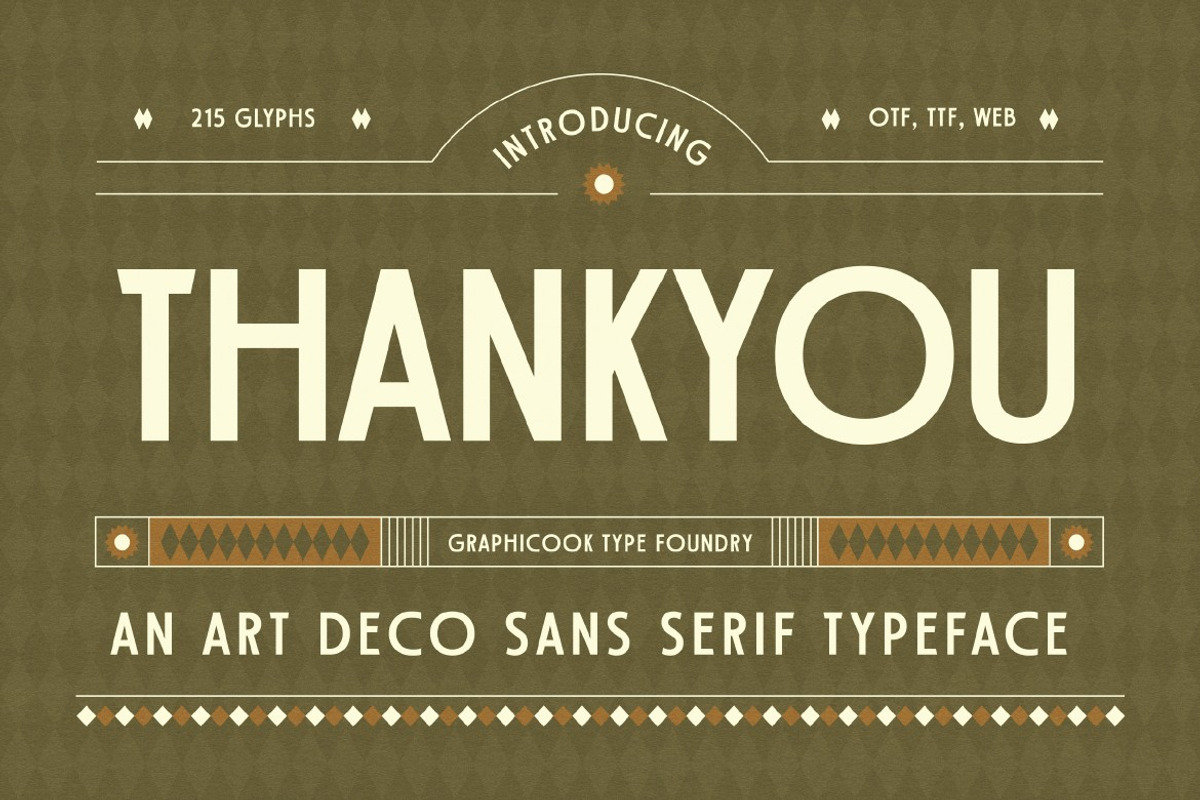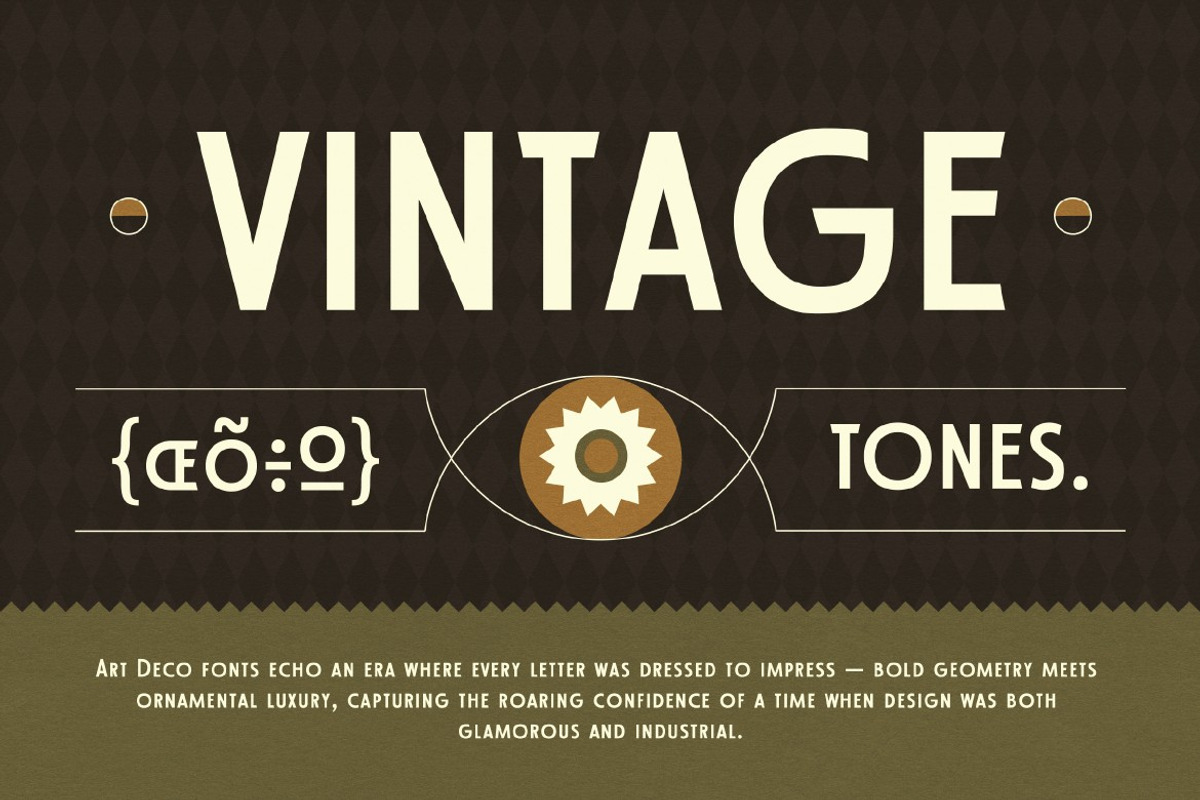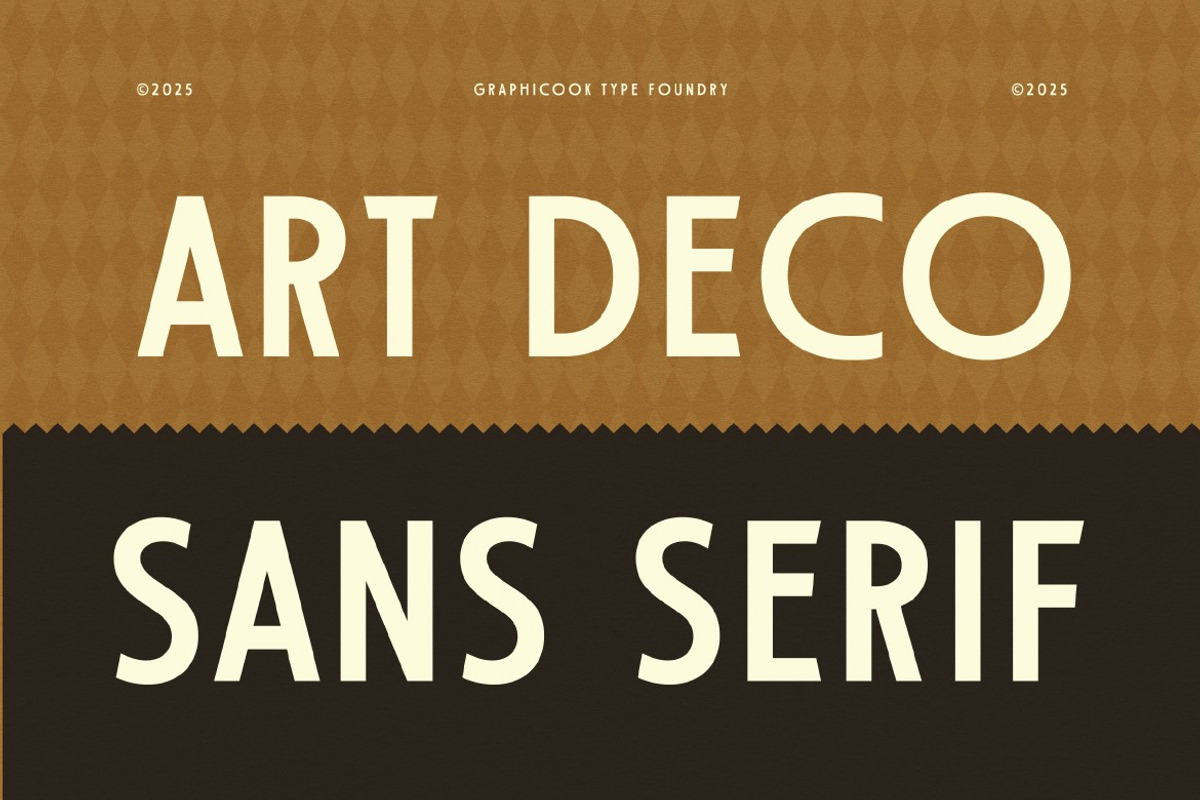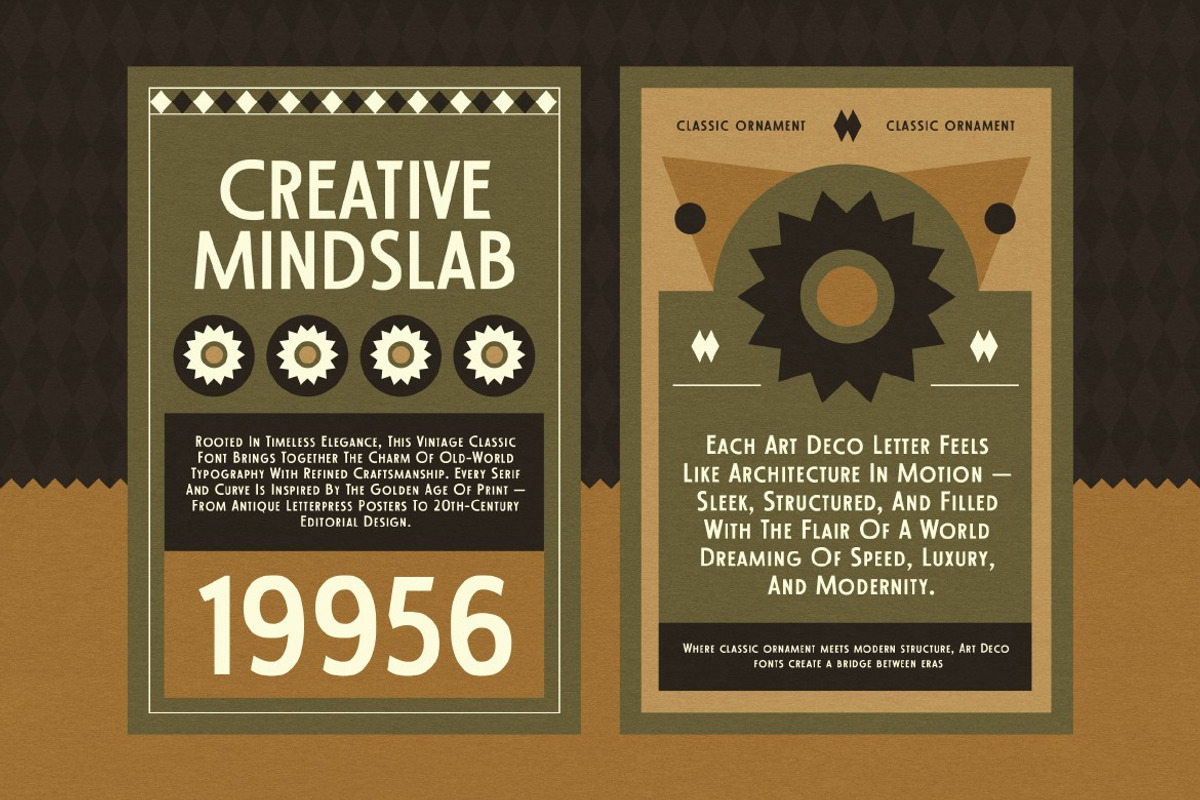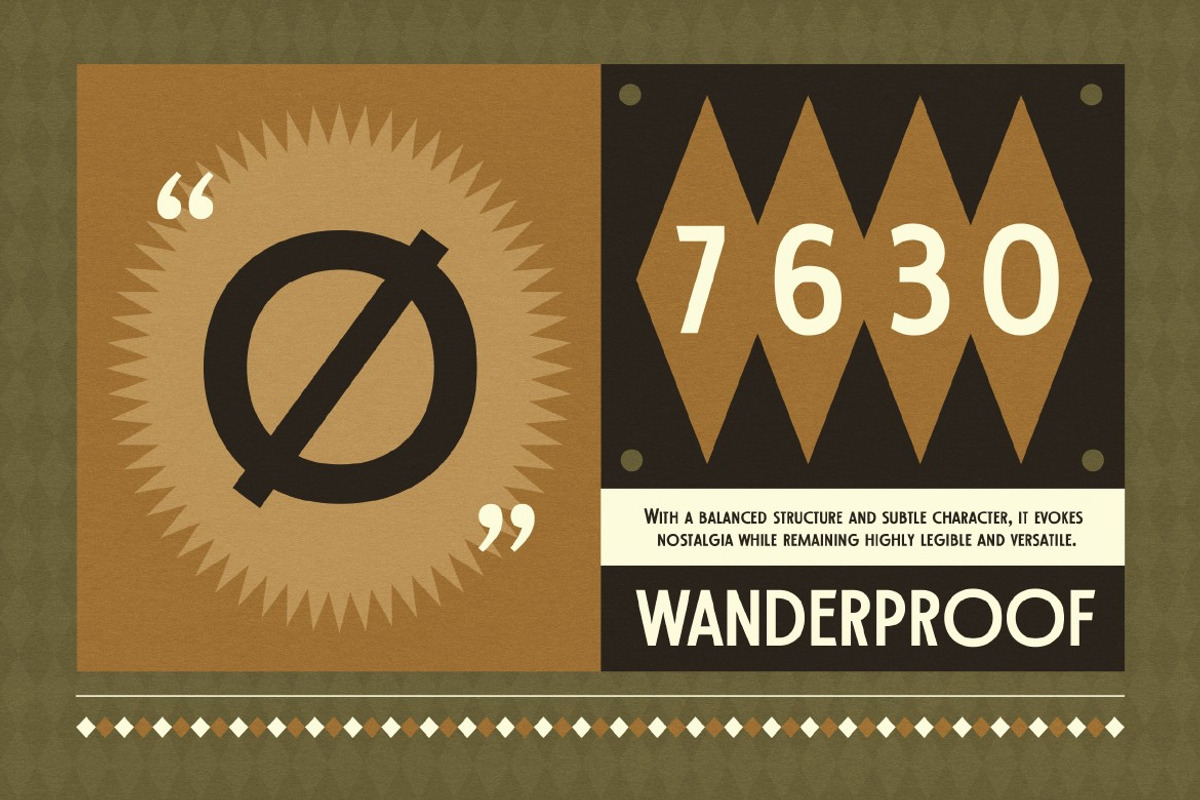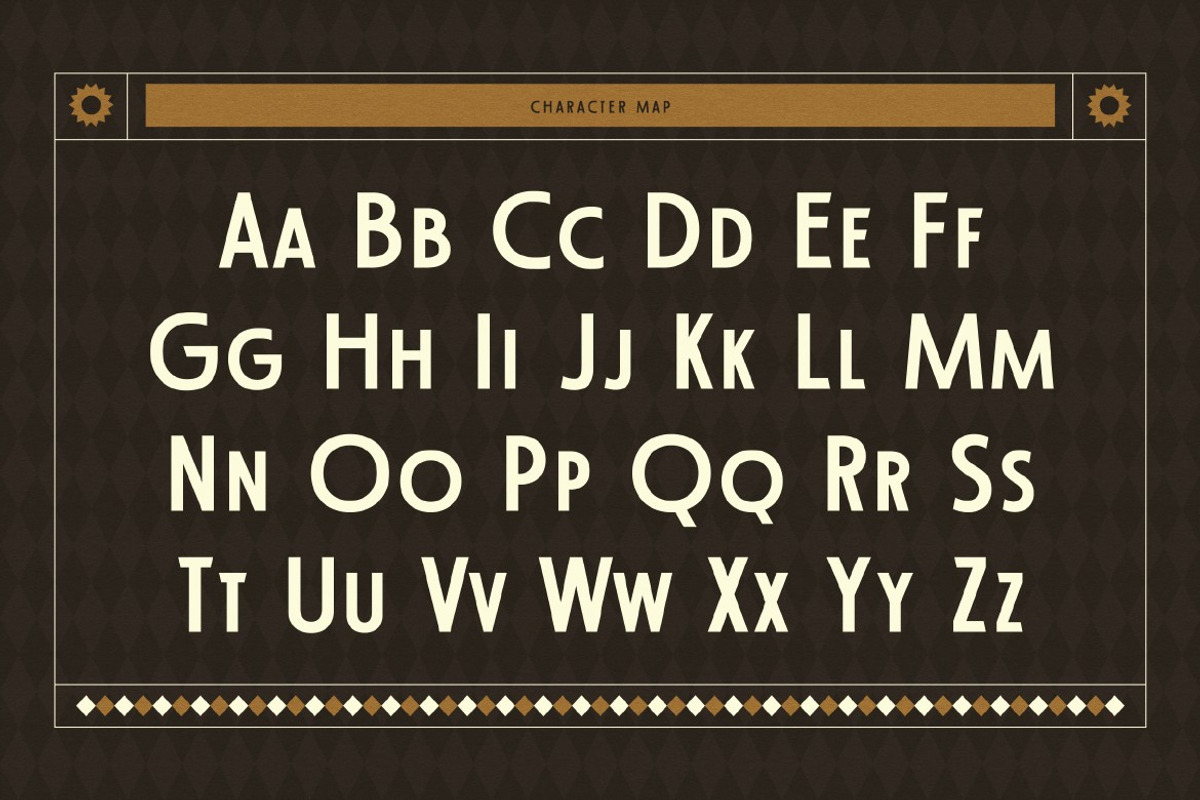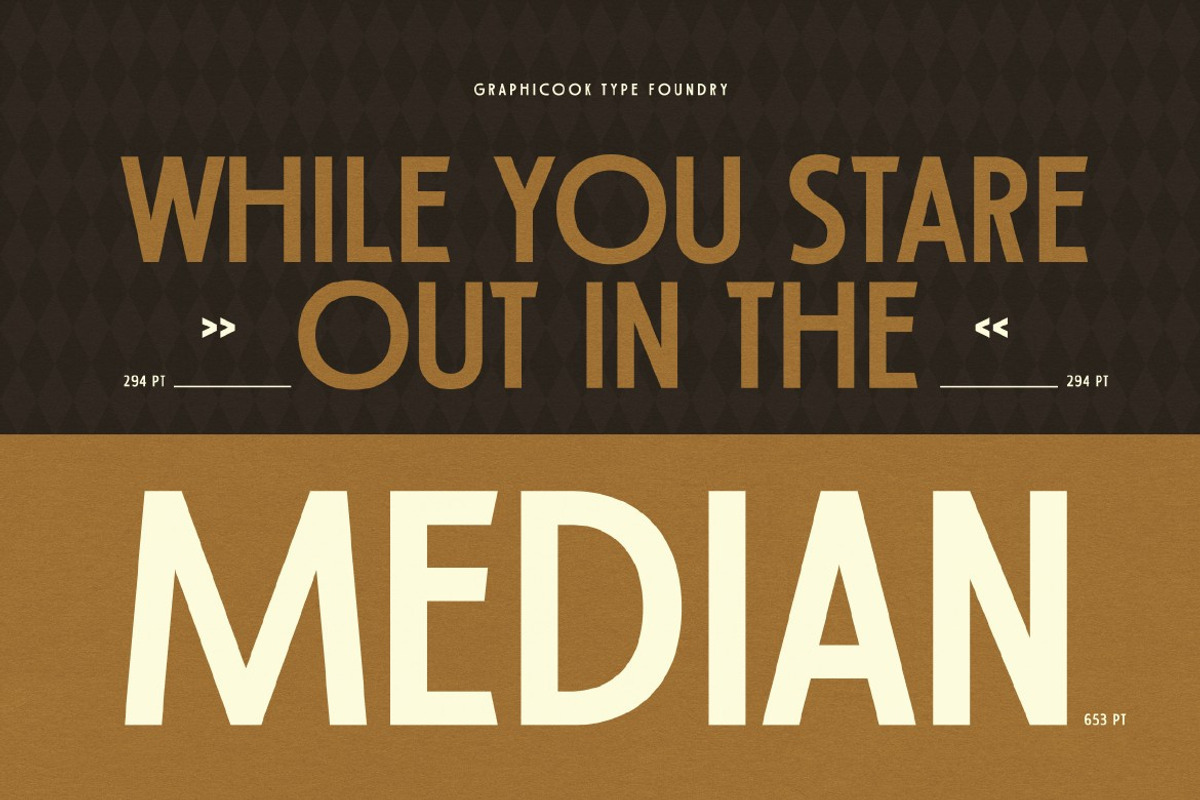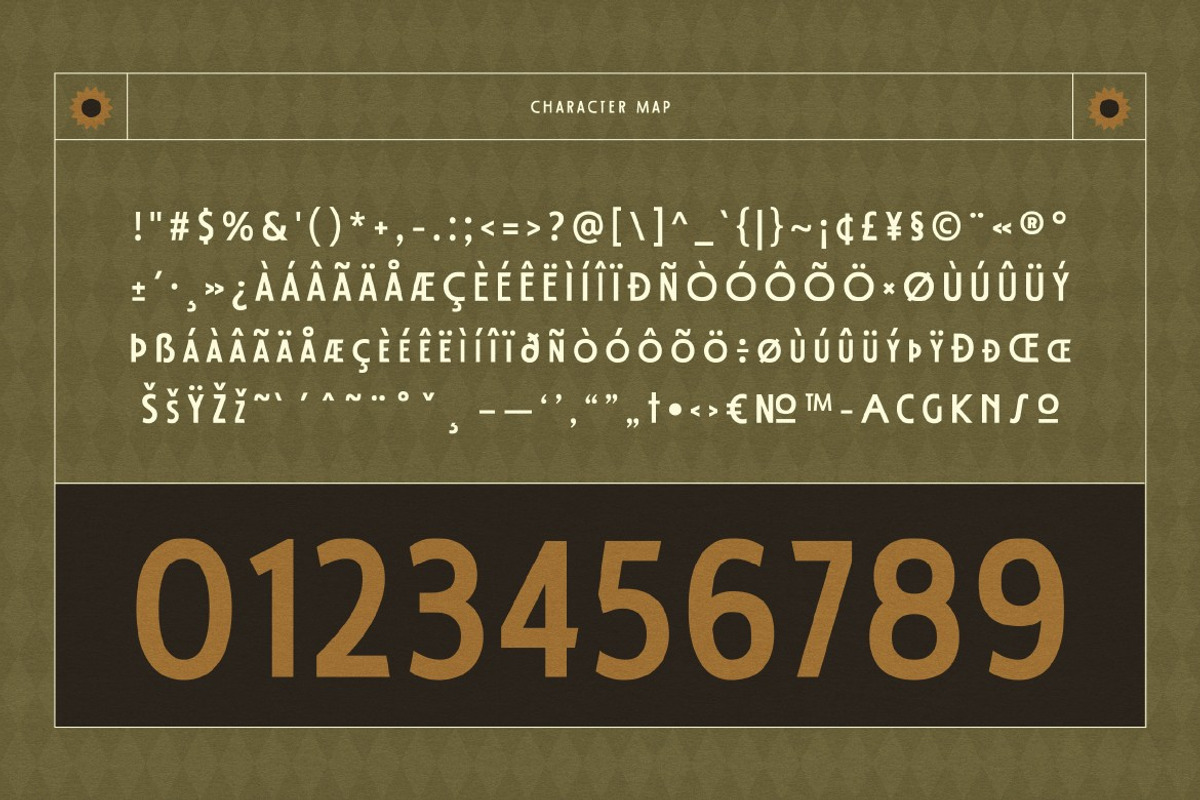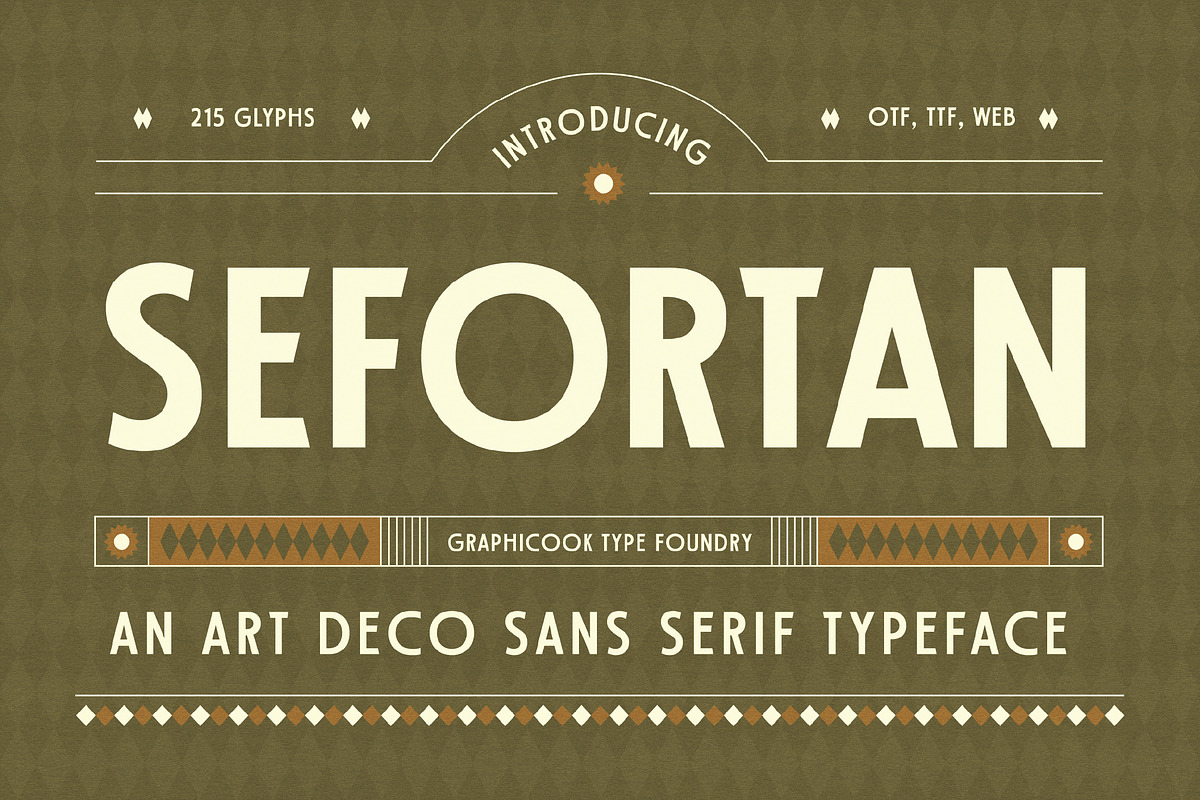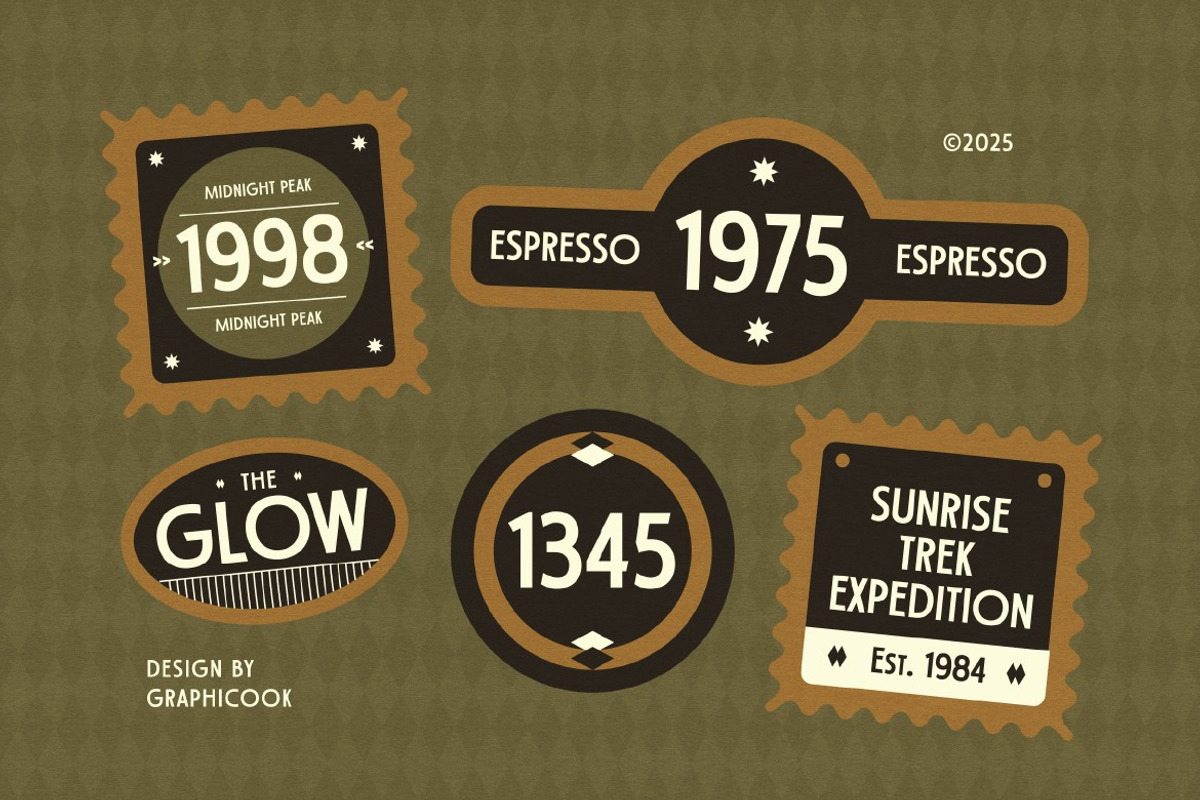
Sefortan
Sefortan is a bold sans serif font with a striking Art Deco influence, exuding luxury, symmetry, and timeless elegance. Great for vintage or classic branding, logos, and wedding invitation designs.
It is perfect for headlines, logotypes, magazines, packaging, quotes, movies, games, cover albums, book covers, and flyers, it's a perfect solution for creating eye-catching designs that stand out in any context.